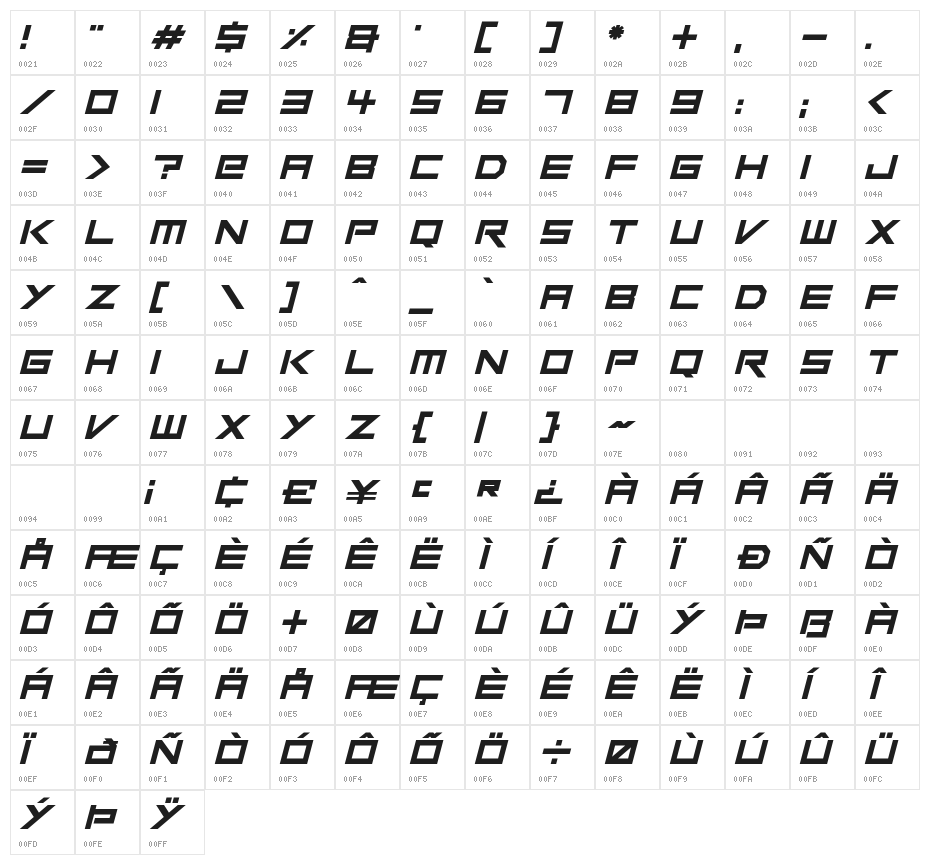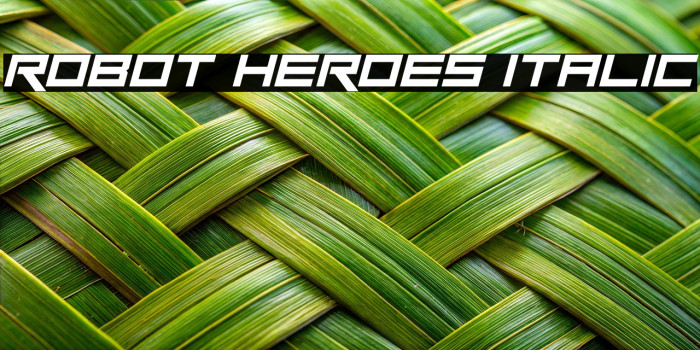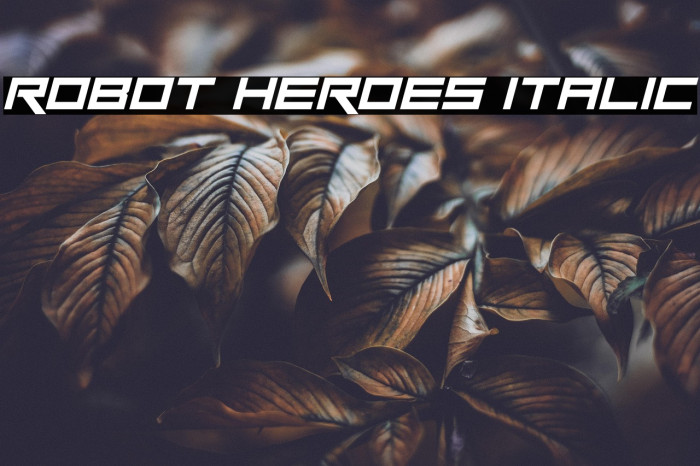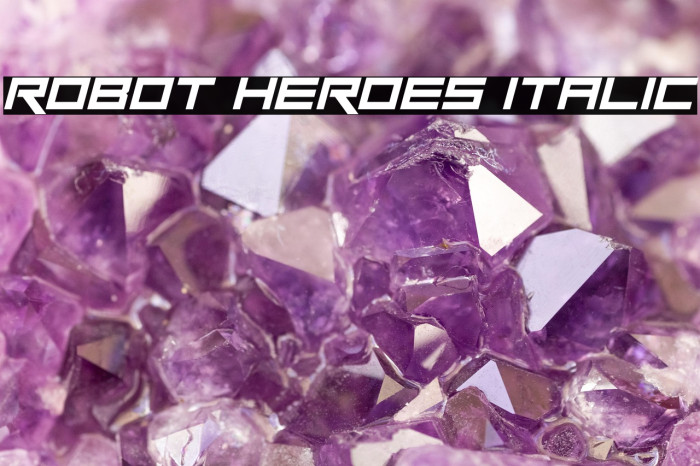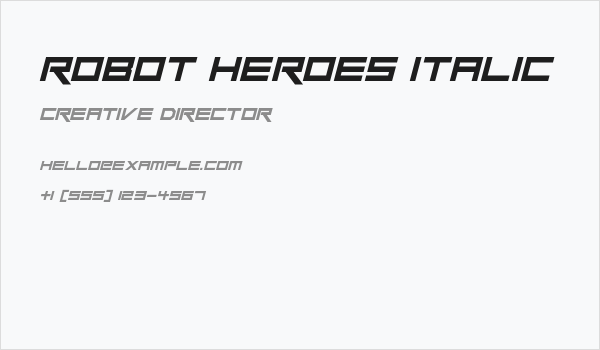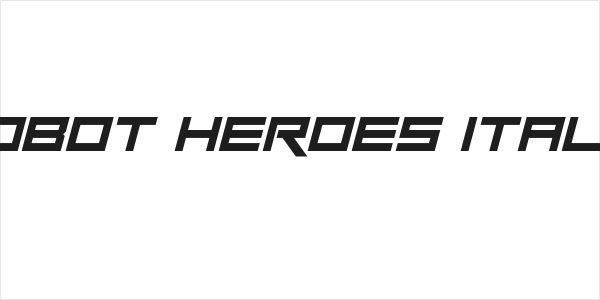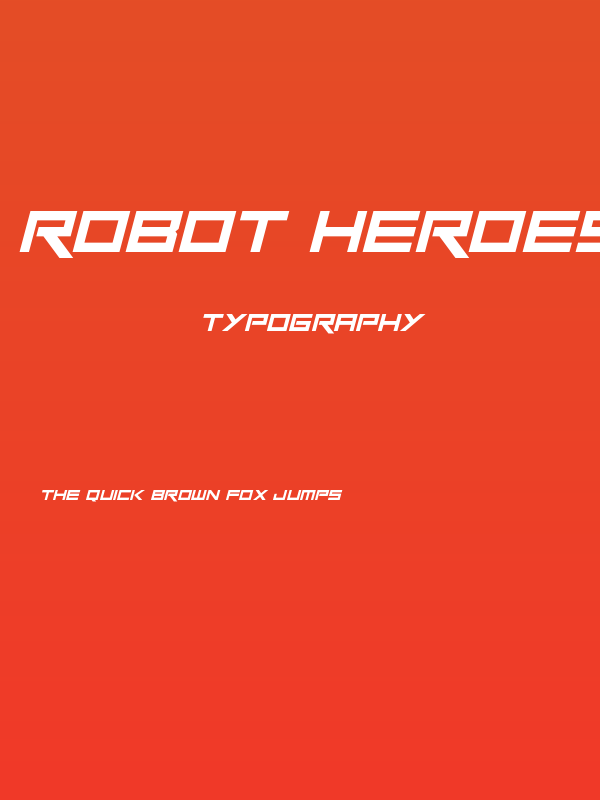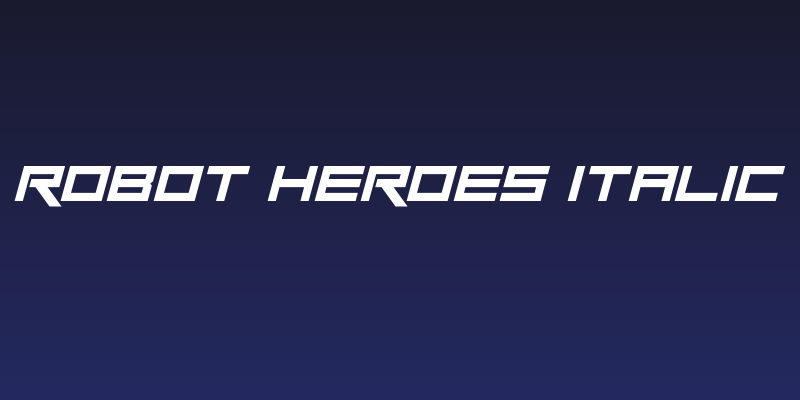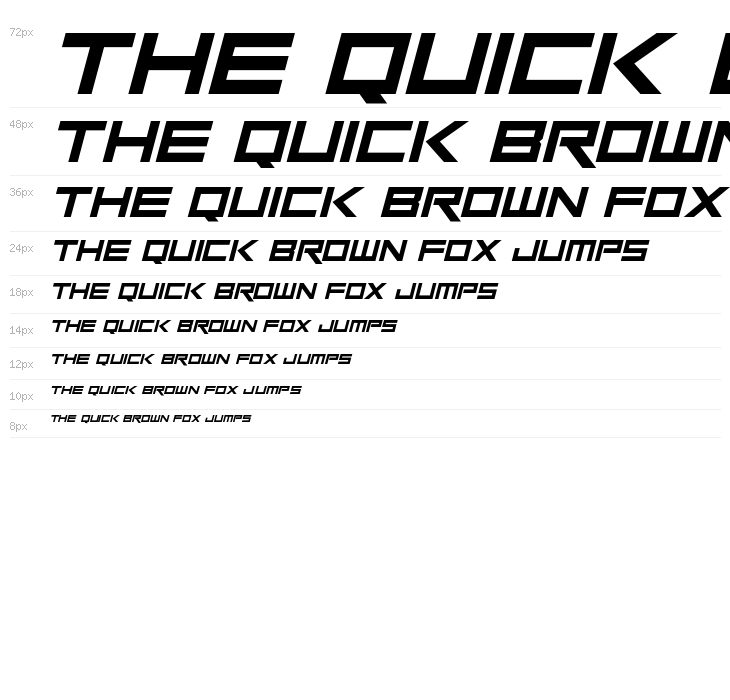
Robot Heroes Italic Font
Robot Heroes Italic Description
A geometric, angular sans-serif typeface with a strong italic slant, featuring sharp edges and a futuristic, mechanical appearance. The characters are wide with consistent stroke thickness, and the overall design emphasizes speed and technology.
| Overall Style | Futuristic, Modern, Decorative |
| Proposed Projects | Tech branding, sci-fi posters, gaming logos, robotics presentations, sports graphics. |